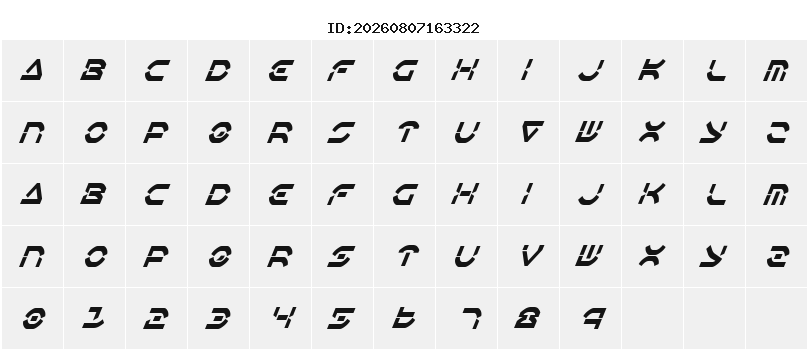
Oberon Deux Condensed Italic Preview
• Font Name: Oberon Deux Condensed Italic
• Font Style: Condensed Italic
• Full Font Name: Oberon Deux Condensed Italic
About Oberon Deux Condensed Italic.ttf
Oberon Deux Condensed Italic.ttf is a modern, elegant sans-serif font designed for ultimate readability and visual harmony. Perfect for branding, headlines, web design, and print materials.